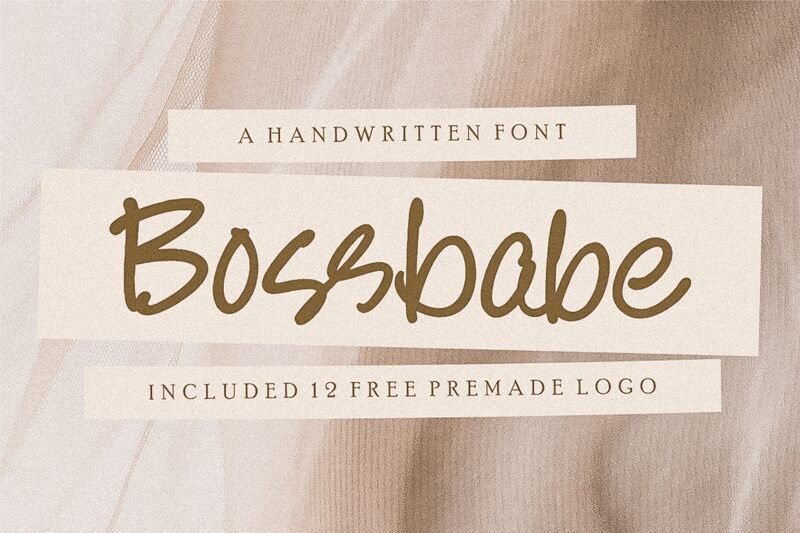
Bossbabe font by Redy Studio is a captivating handwritten font that exudes personality and flair. Its flowing, organic strokes create a dynamic and approachable aesthetic, perfect for adding a personal touch to your designs. The playful curves and stylish loops make it ideal for branding projects, greeting cards, and social media graphics.
This free font offers an excellent way to infuse creativity into any project. Bossbabe's inviting charm makes it particularly well-suited for use in fashion, beauty, and lifestyle industries. Easy to download and imbued with character, this font is sure to make your text stand out with elegance and style.